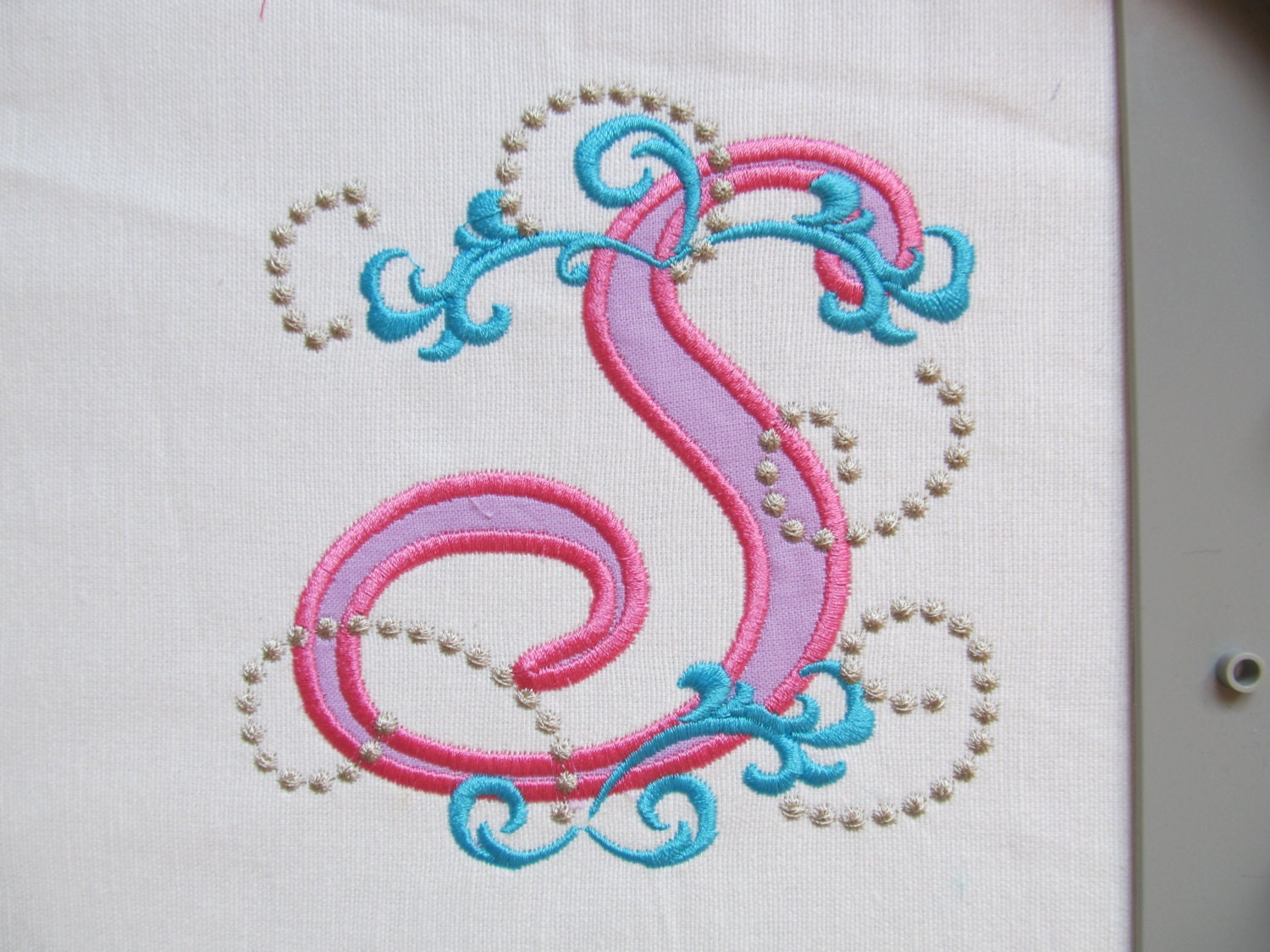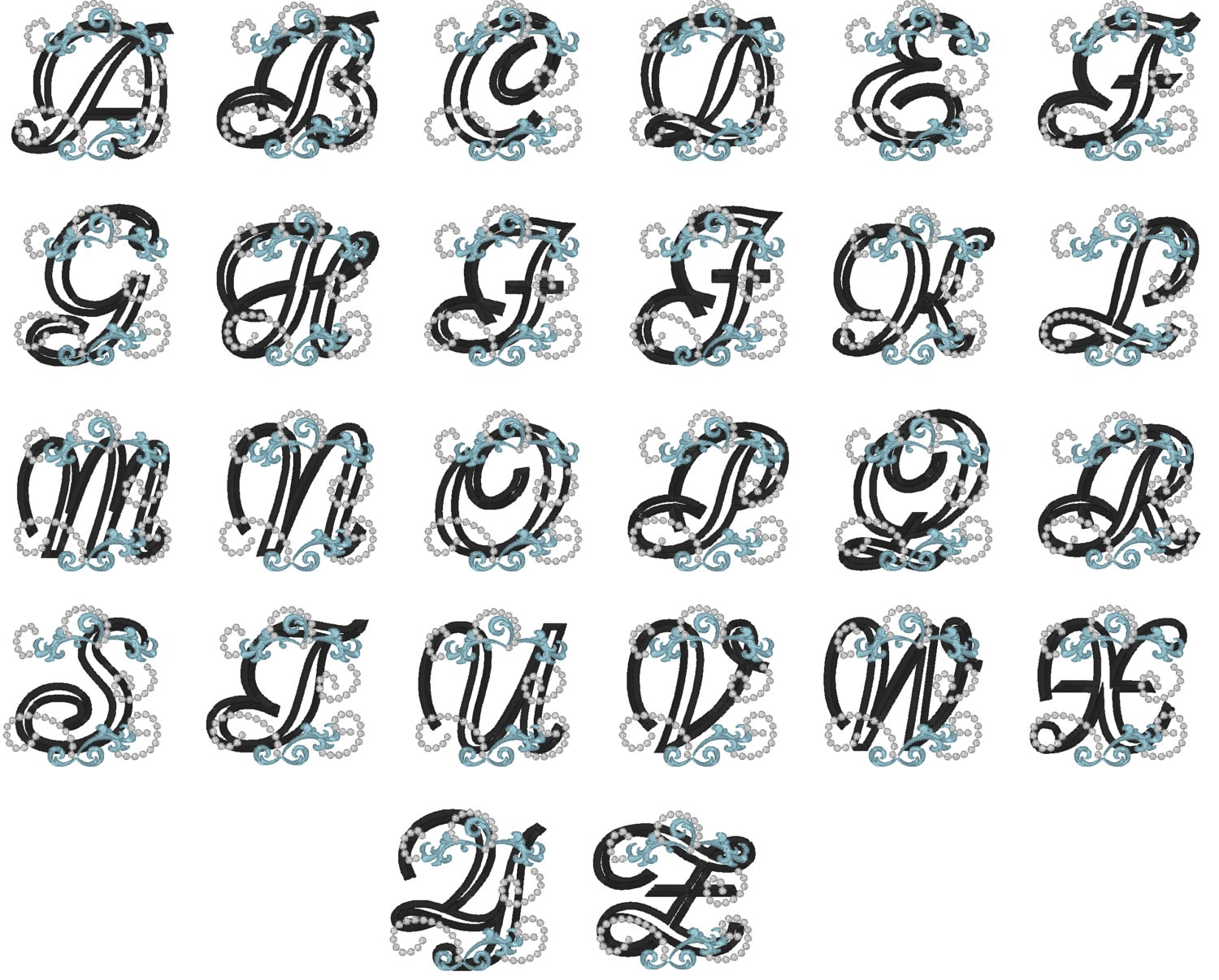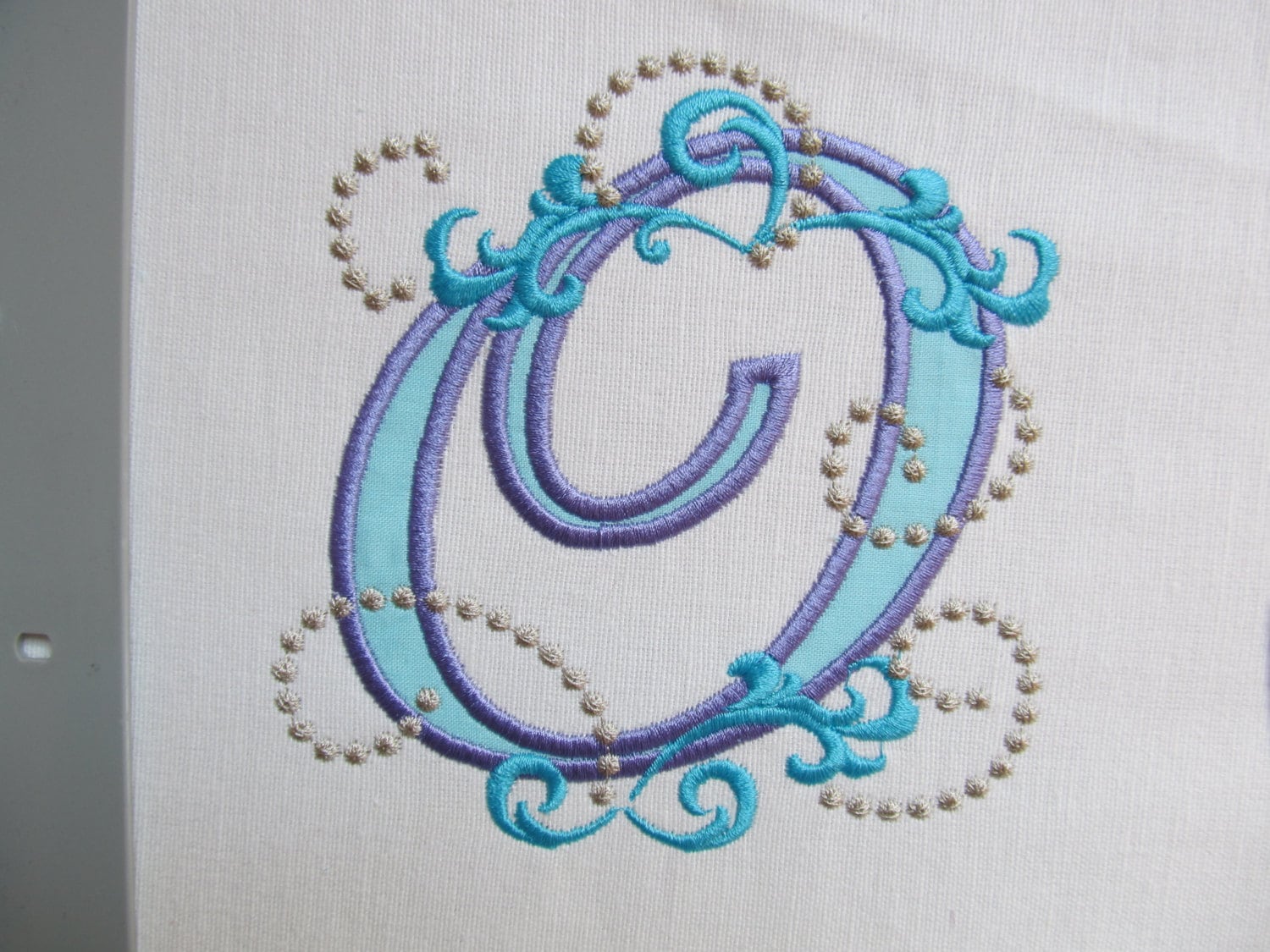
Frozen alphabet letters swirly ice princess monogram FONT whole alphabet girl curl initials A-Z machine embroidery appliqué designs 4x4, 5x7
Applique design
Nice winter-y machine embroidery font.
Alphabet is very pretty. Would have liked it in more sizes though.